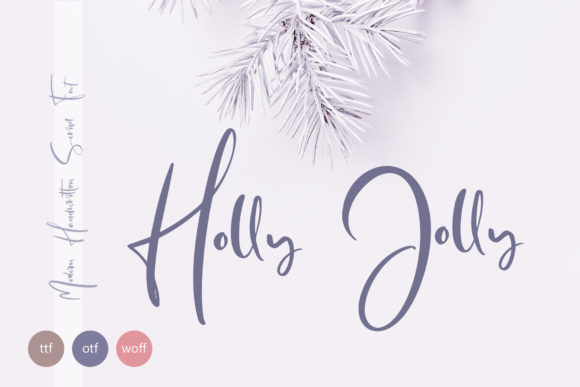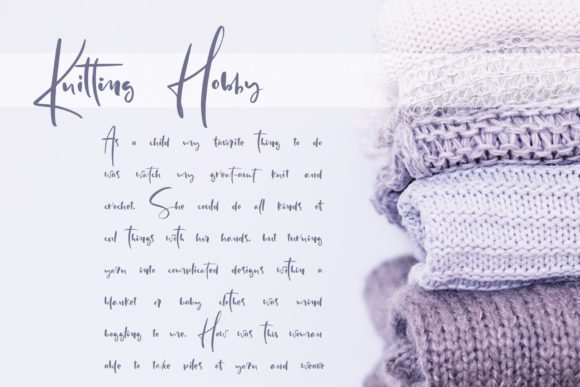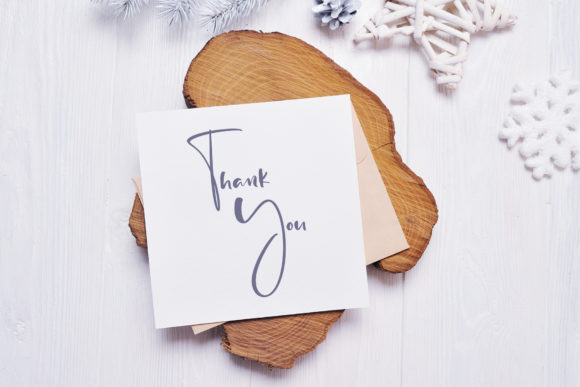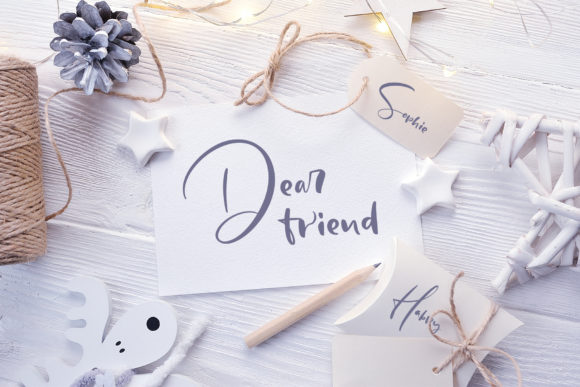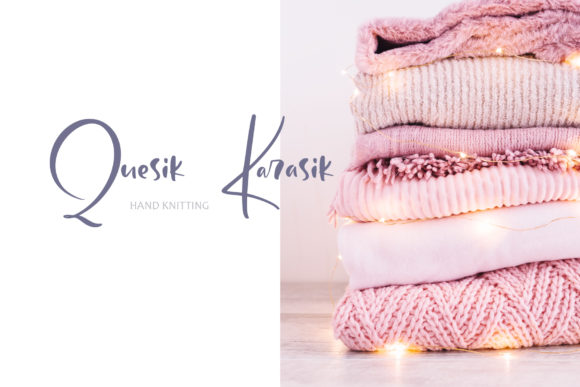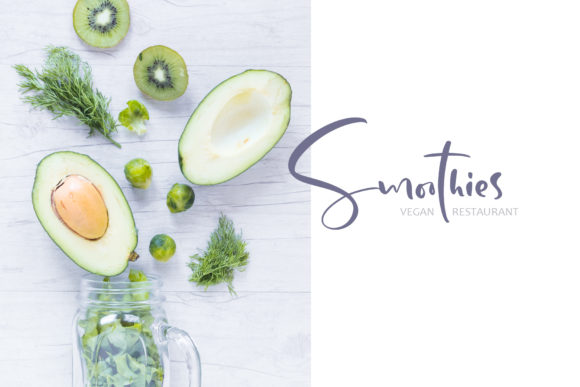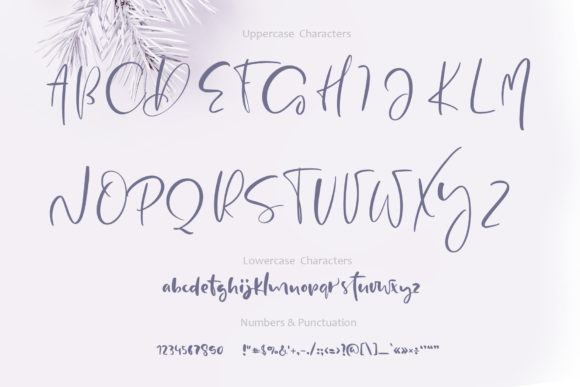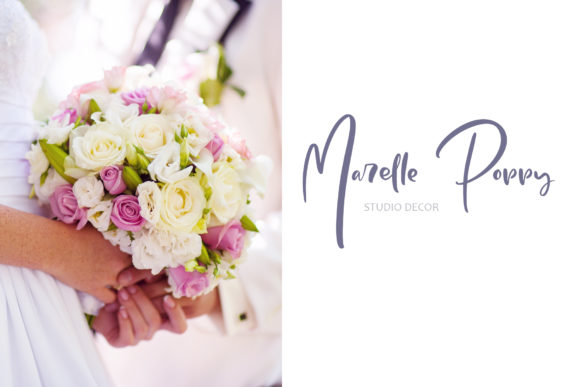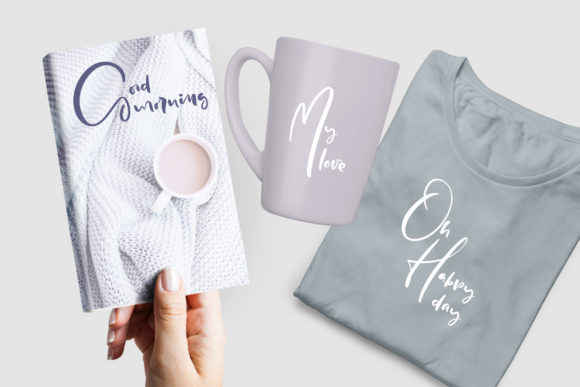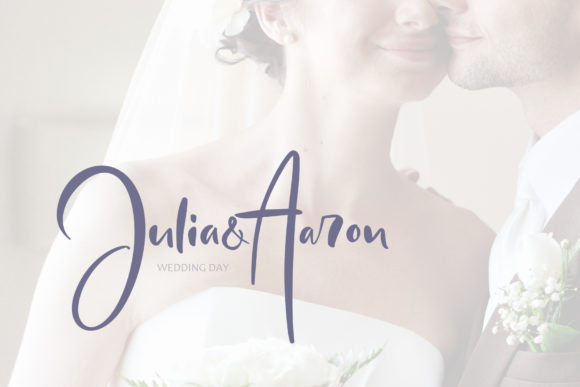
Holly Jolly Font
About Holly Jolly Font
Holly Jolly is an amazing and light handwritten font, full of joy! Get inspired by this stunning font, and turn any creative project into a stand out.